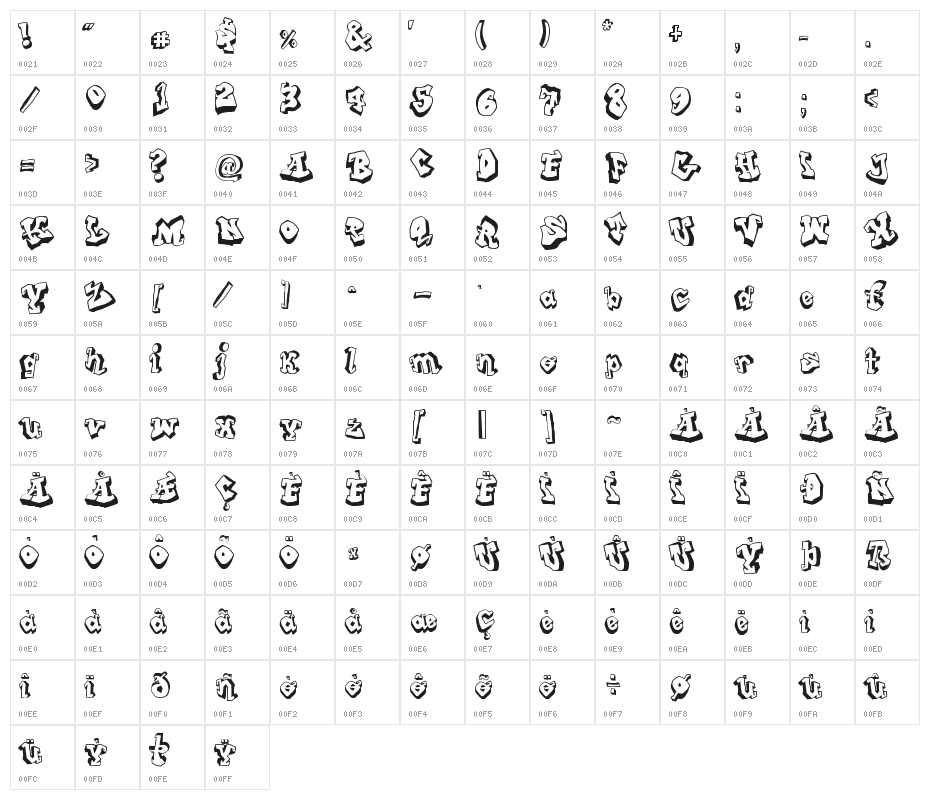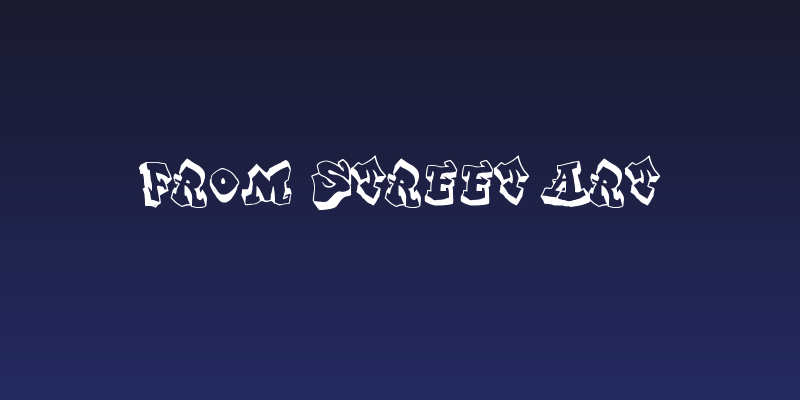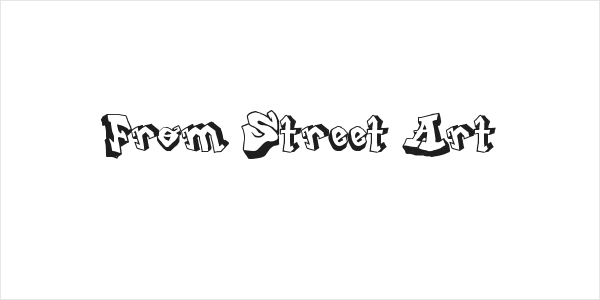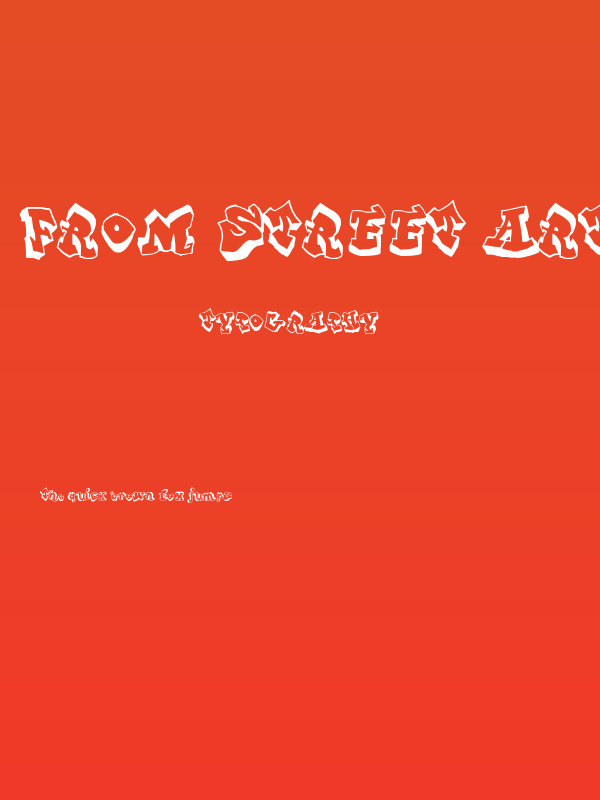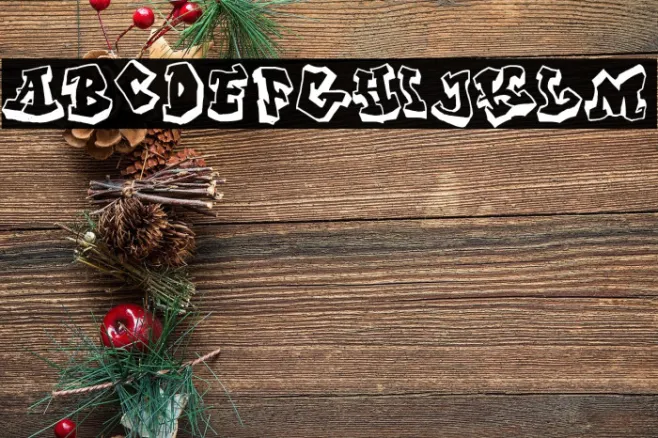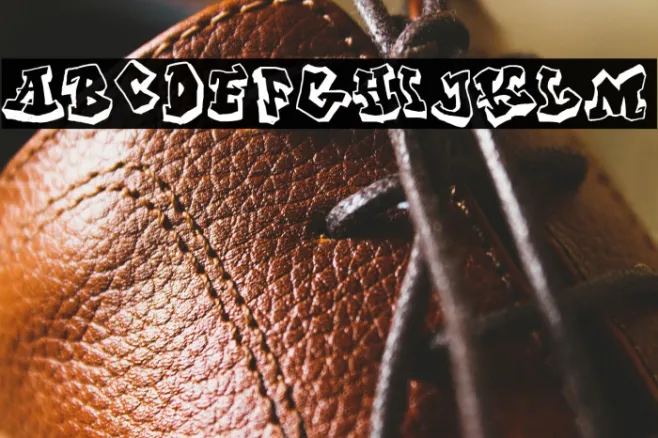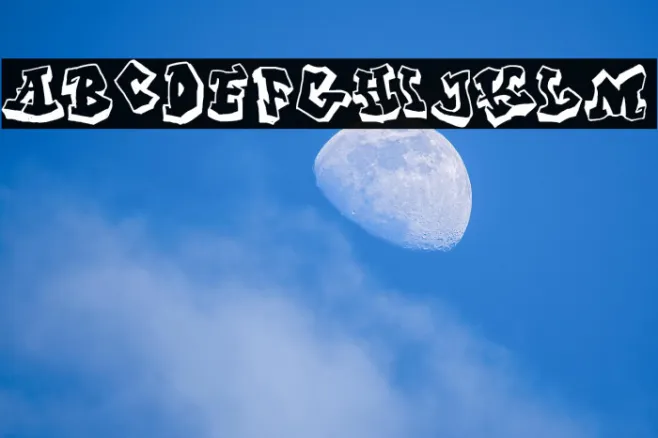
From Street Art Font
From Street Art Description
This font features a bold, graffiti-inspired style with a strong urban influence. The letters are characterized by their thick, angular shapes and dynamic, edgy outlines that mimic the look of street art. Each character has a three-dimensional effect, giving it a shadowed appearance that enhances its boldness. The font exudes a sense of rebellion and creativity, making it ideal for projects that aim to capture the essence of urban culture. Its playful yet assertive design is perfect for making a statement, whether in print or digital media.
| Overall Style | Urban, Graffiti, Bold |
| Proposed Projects | Ideal for street art projects, urban-themed posters, music album covers, and edgy branding materials. |